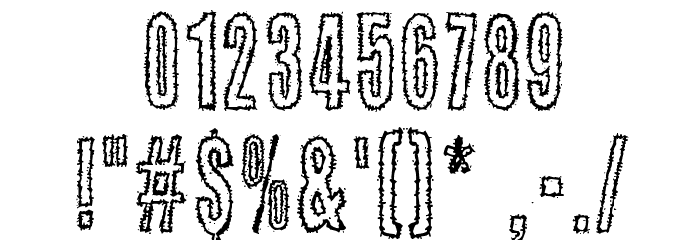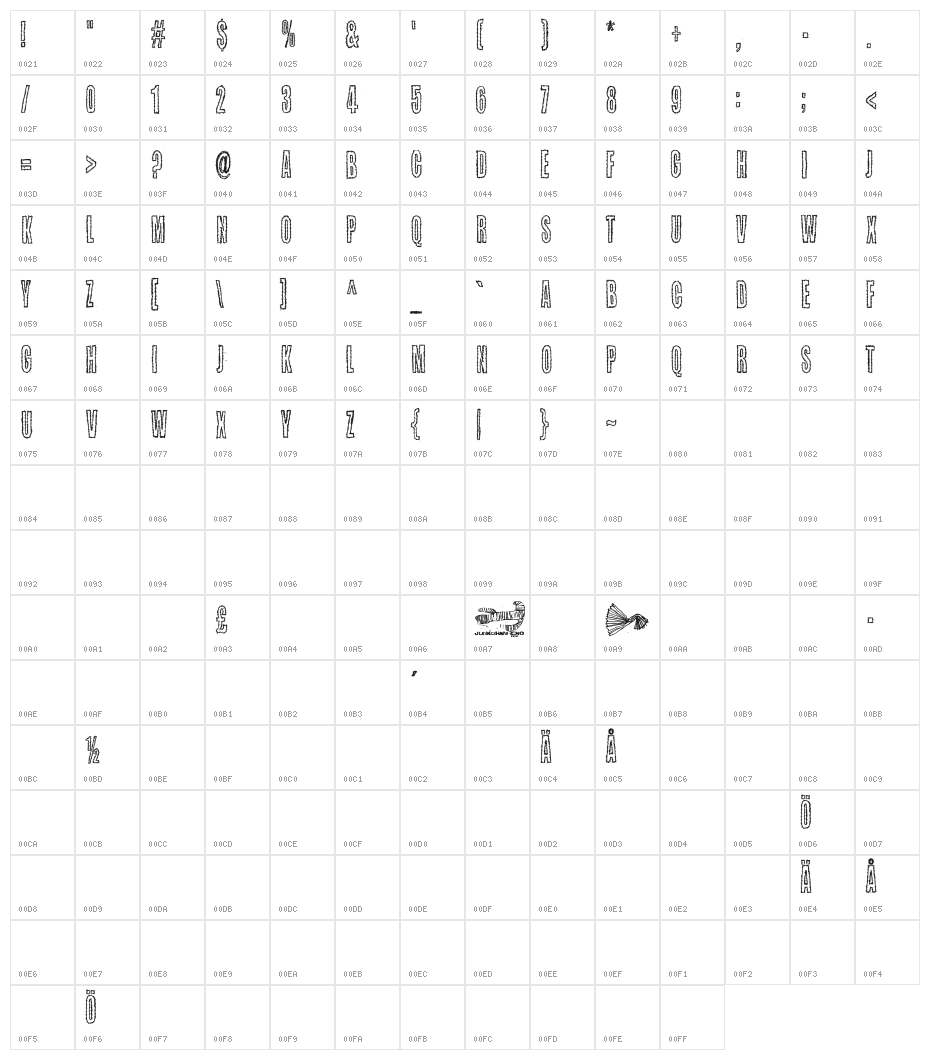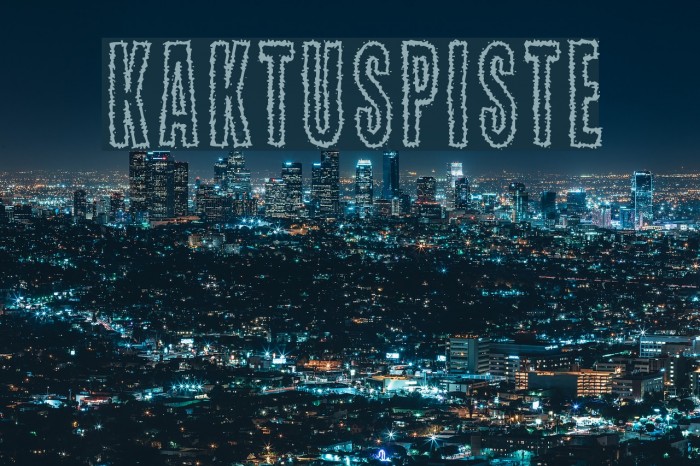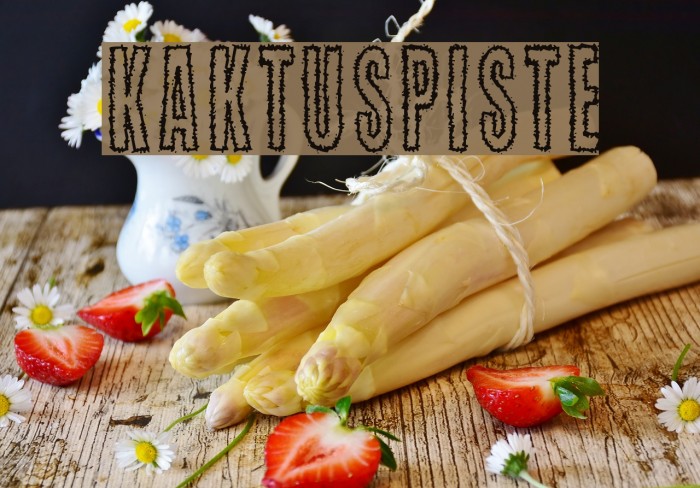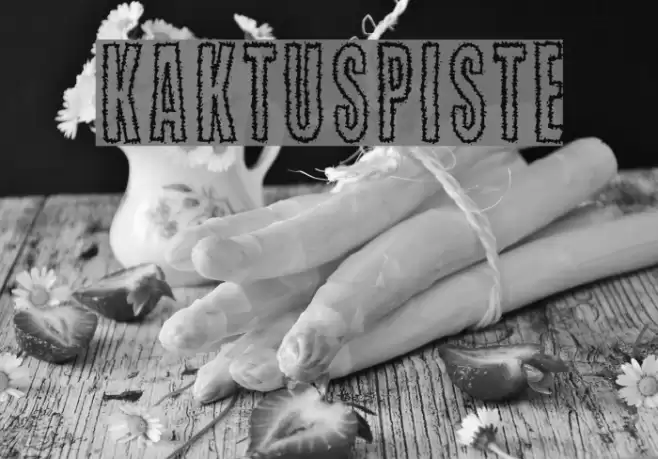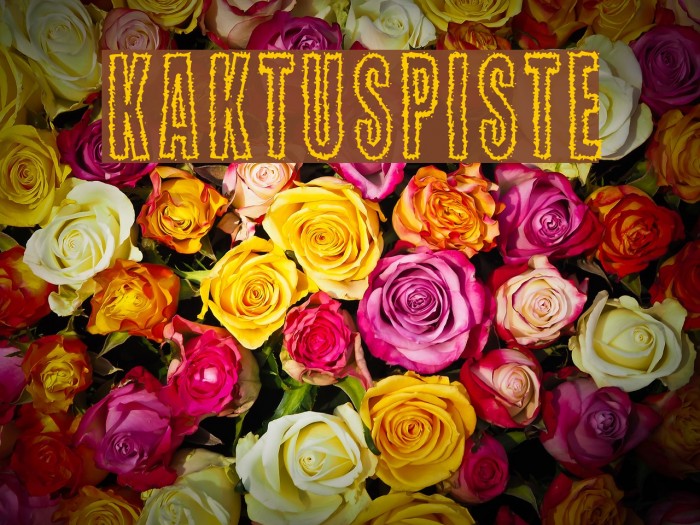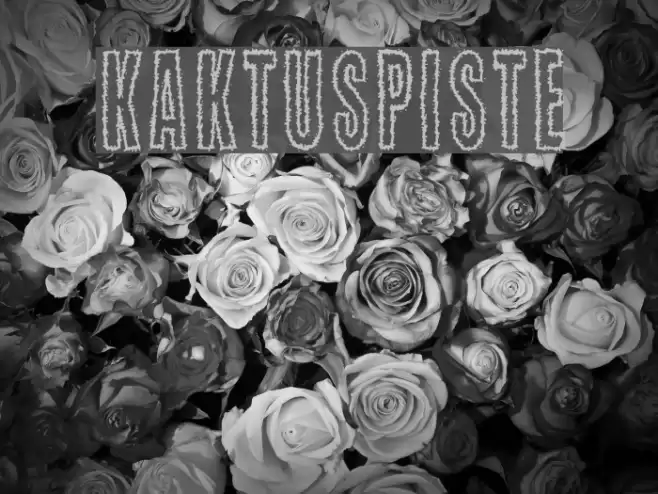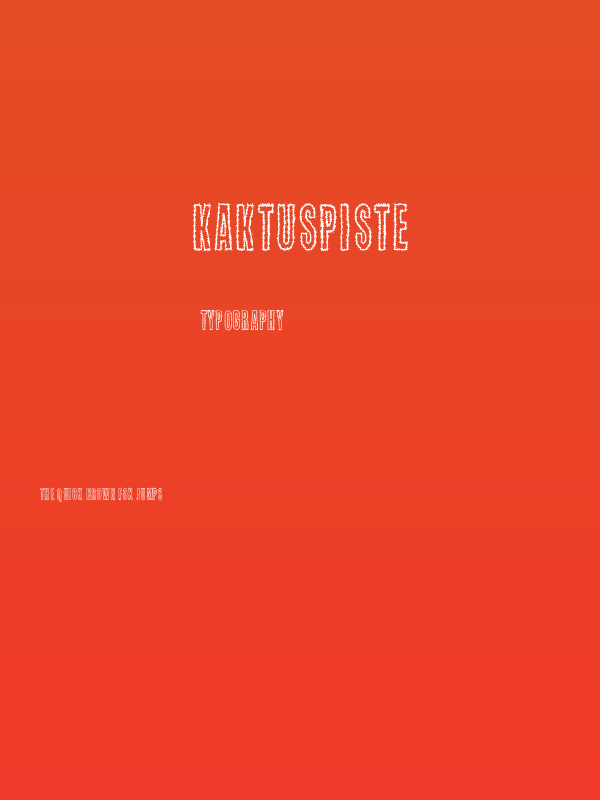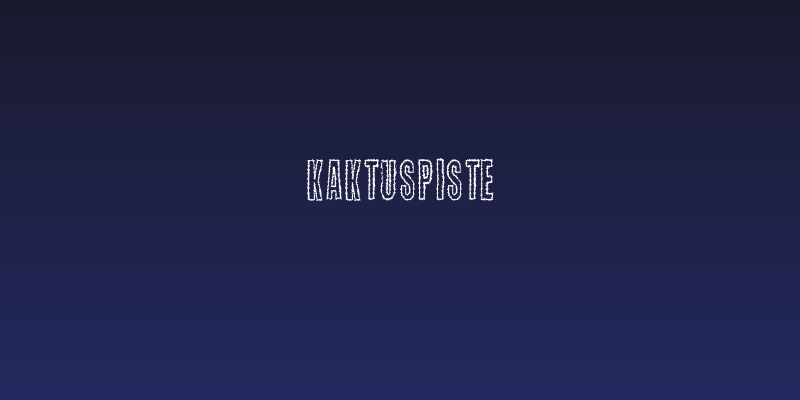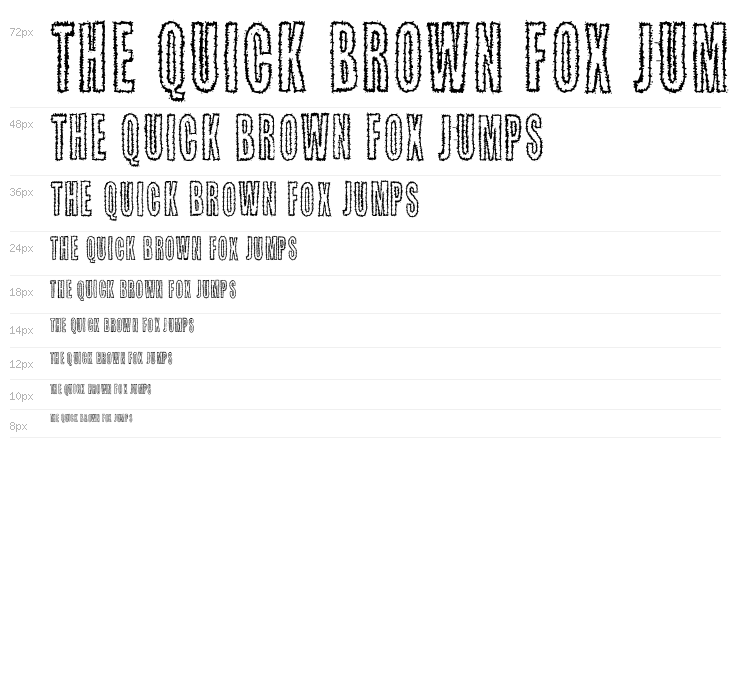
Kaktuspiste Font
Kaktuspiste Description
This font features a bold, textured design with a distressed, rough outline that gives it a rugged and vintage appearance. The uppercase letters are tall and narrow, emphasizing a strong vertical presence. The numbers and special characters maintain the same textured style, ensuring consistency across all glyphs. The font's unique texture adds a tactile quality, making it stand out in any design. Its boldness and distinctive style make it suitable for projects that require a strong visual impact.
| Proposed Projects | Ideal for posters, album covers, branding, and any design needing a bold, vintage aesthetic. |